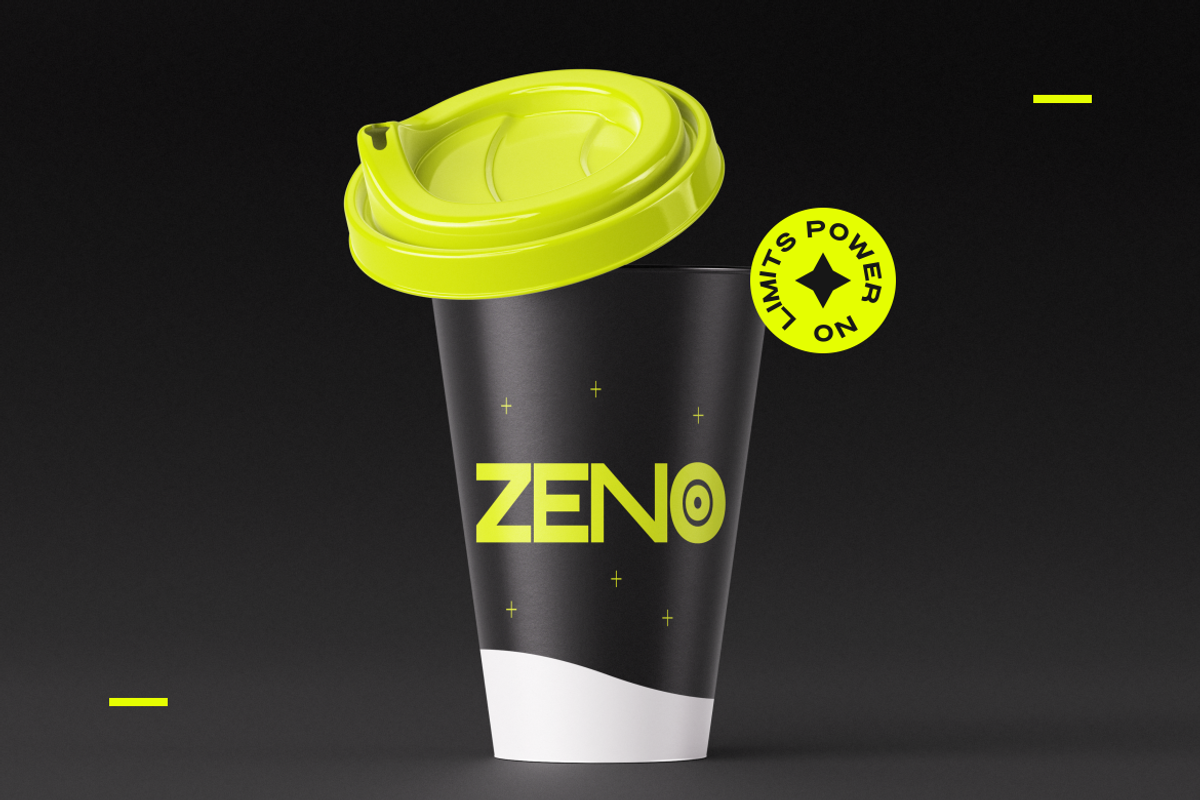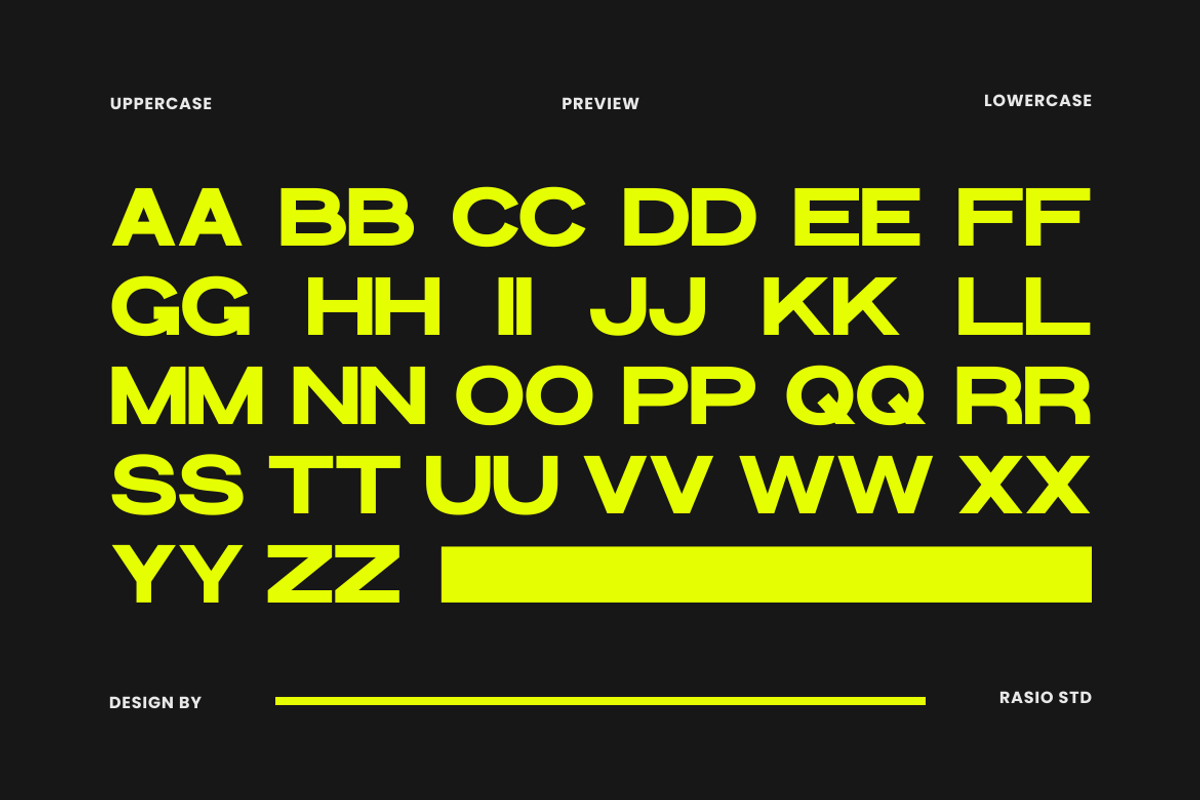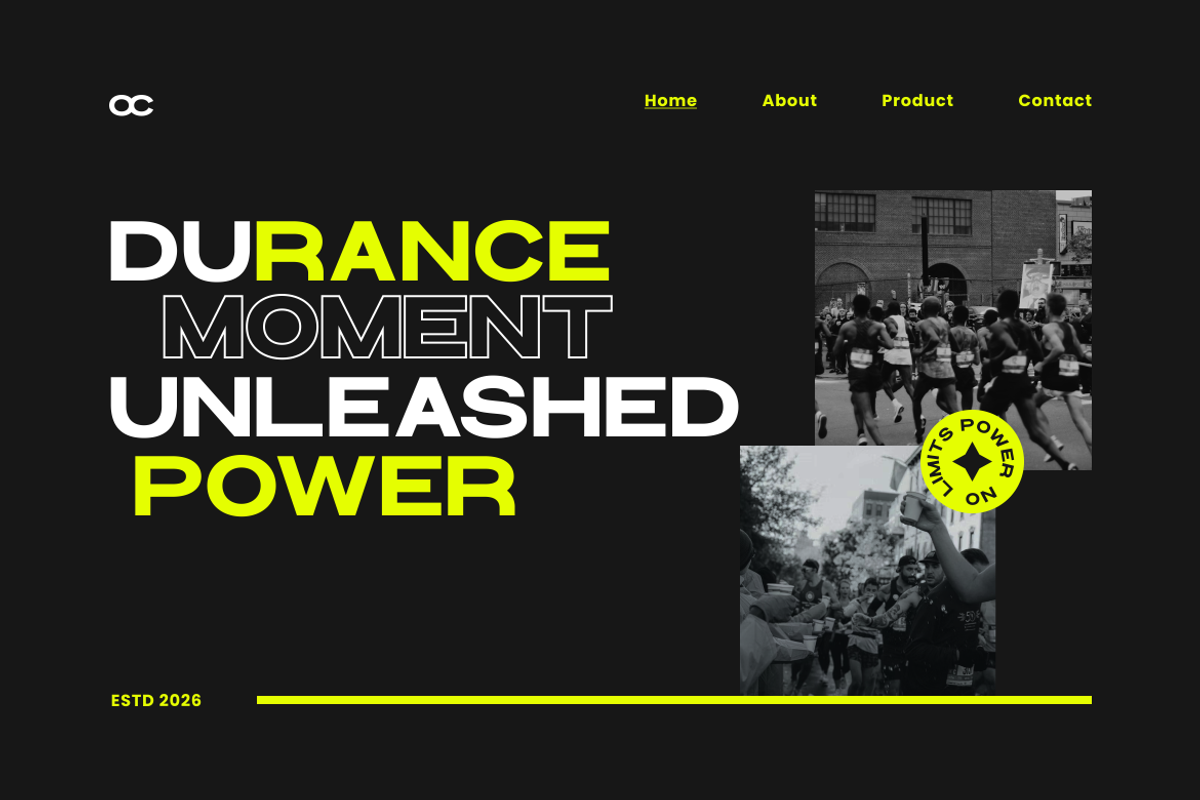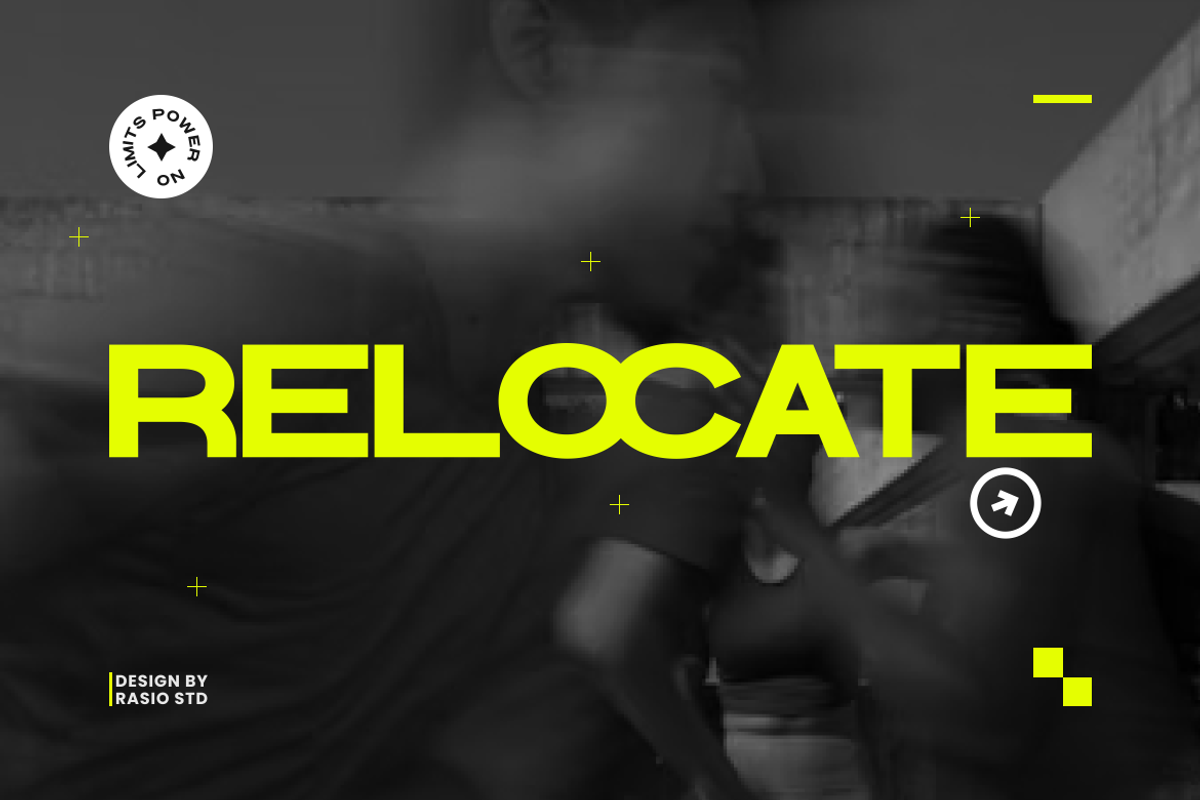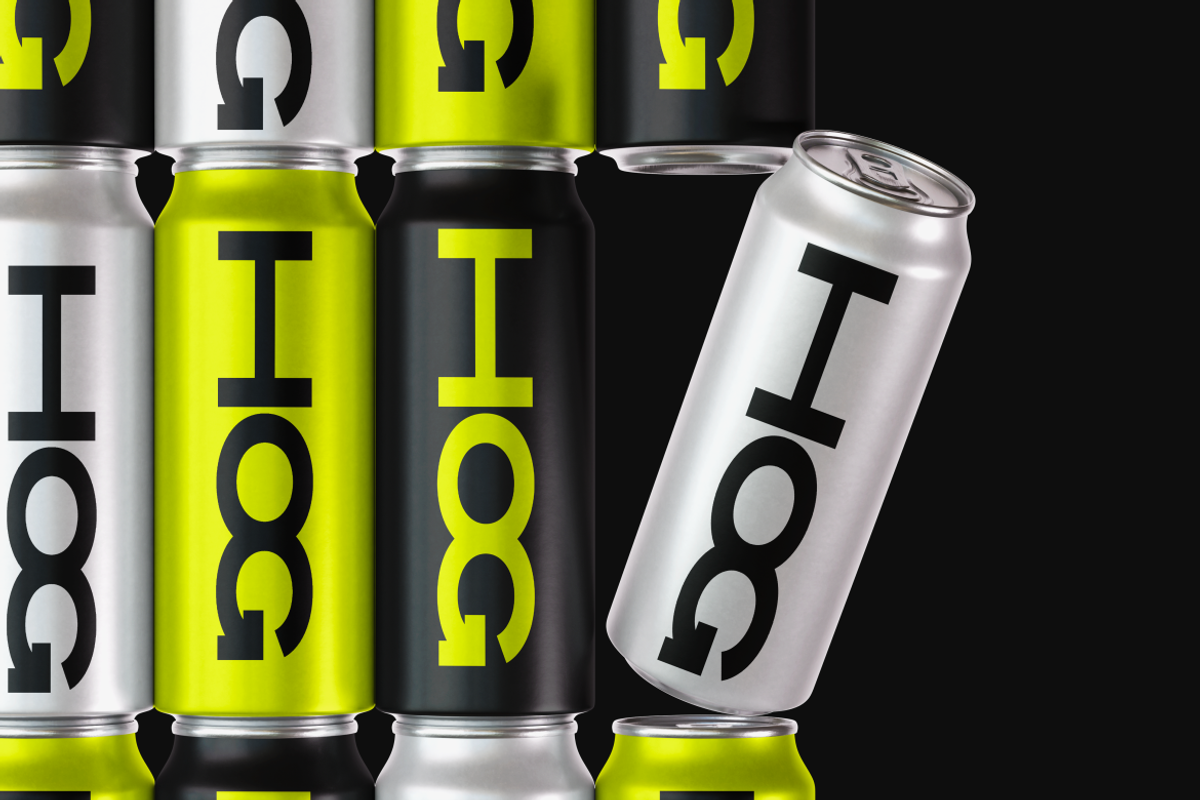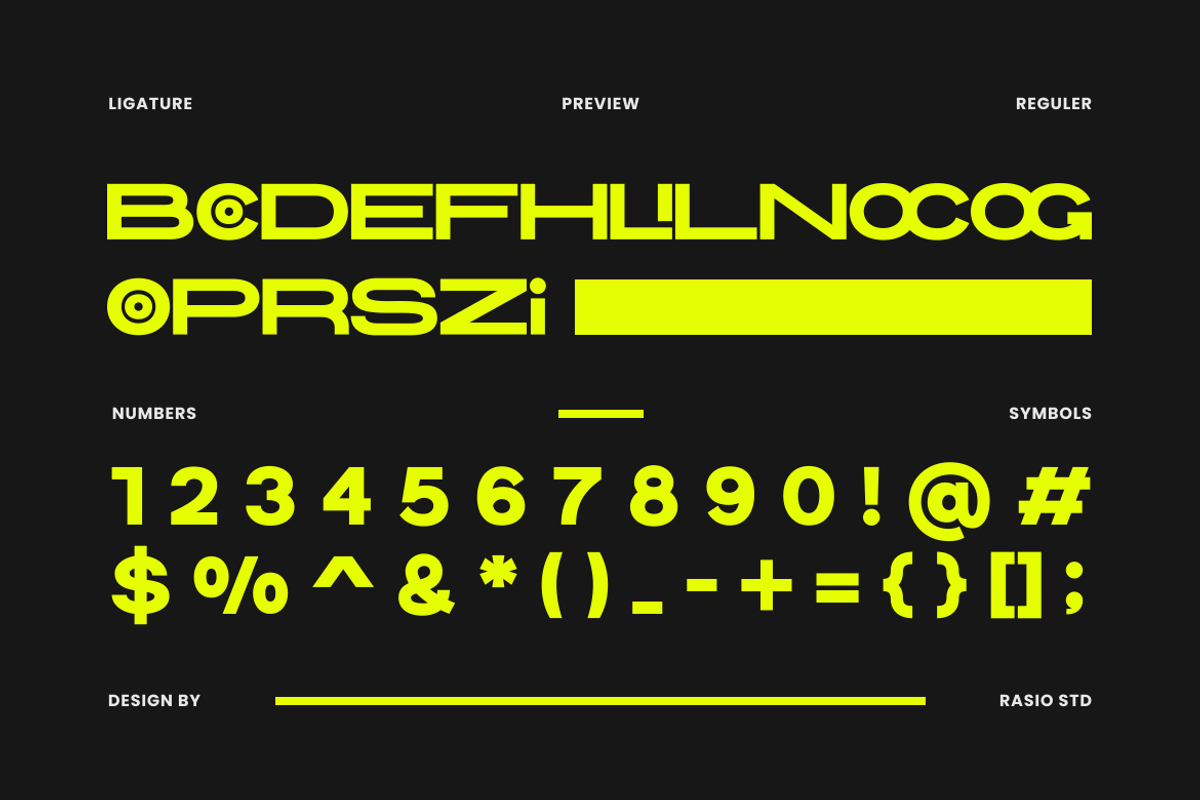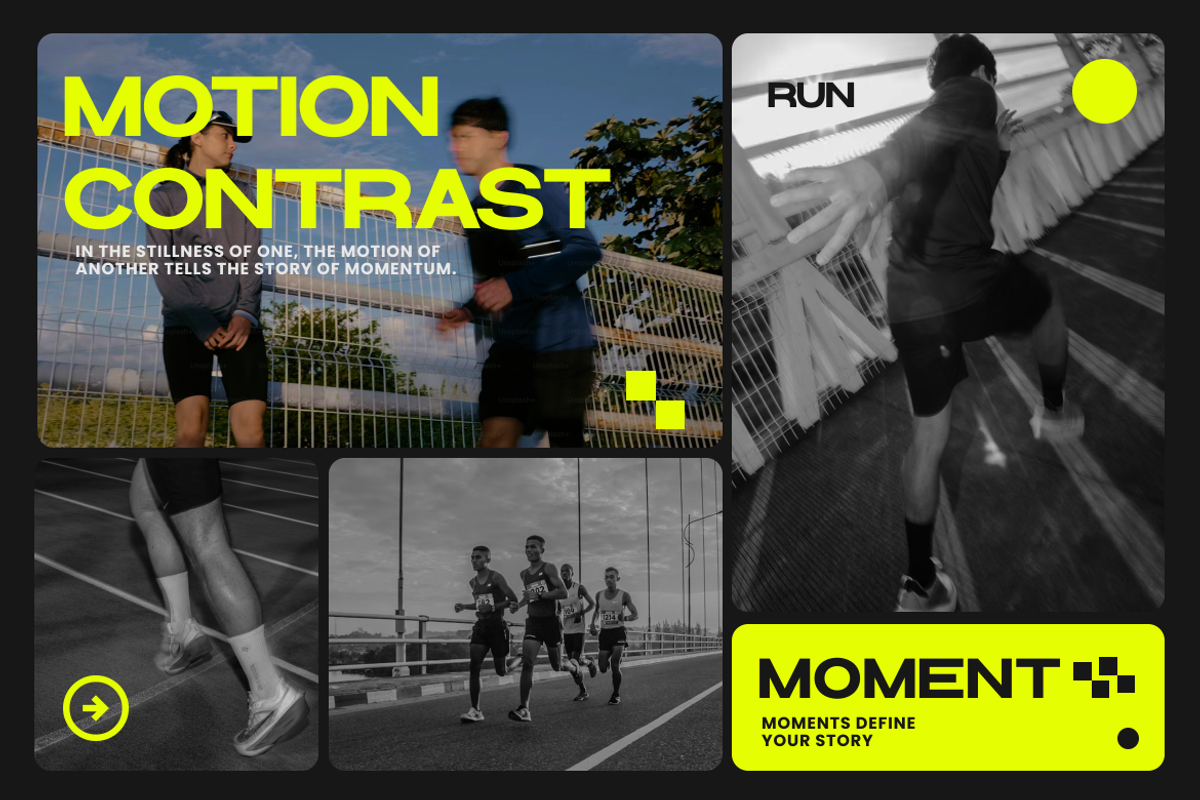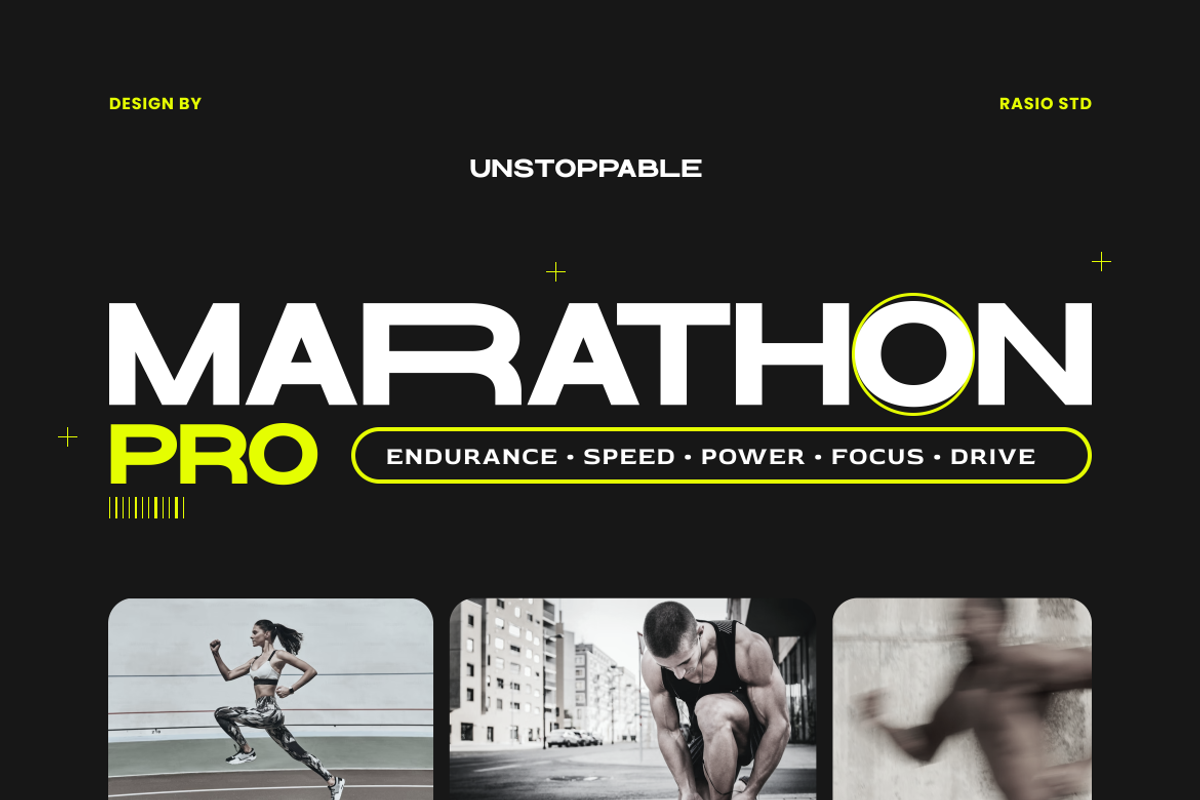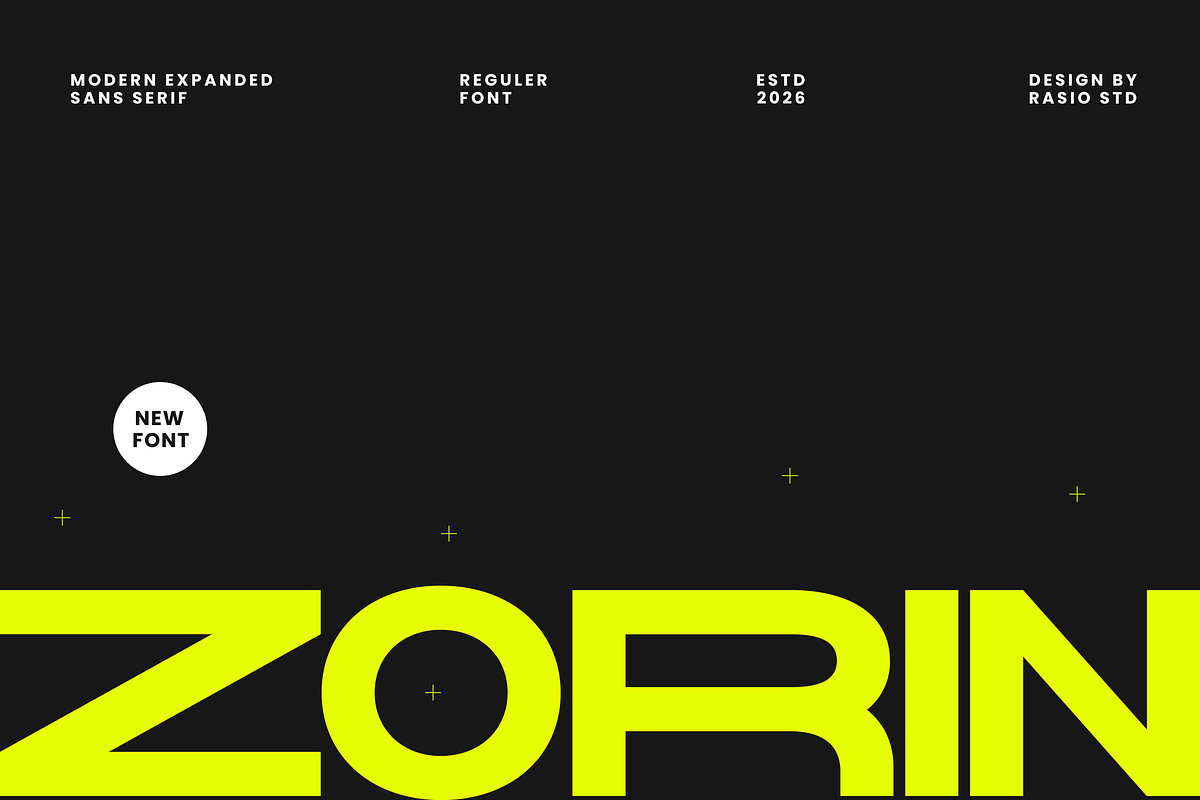
Zorin Modern Expanded Sans Serif
Zorin is a modern expanded sans-serif font designed with bold geometry and wide proportions to create a strong visual presence. Built for impactful typography, this typeface combines futuristic aesthetics with clean structural forms, making it perfect for contemporary design projects that require attention and clarity. The font features powerful uppercase characters, balanced spacing, and distinctive ligatures that enhance its modern identity.
Zorin is ideal for modern branding and projects that require strong visual impact. Its expanded structure and bold geometric forms make it perfect for tech brands, gaming visuals, digital interfaces, posters, editorial headlines, and contemporary marketing campaigns. The font delivers a confident and futuristic look that helps designs stand out across both digital and print media.
- Modern expanded sans-serif design with bold geometric proportions
- Wide letterforms creating a strong and futuristic visual presence
- Clean squared curves and sharp angles for a modern tech aesthetic
- Balanced stroke weight delivering clarity and strong display impact
- Optimized spacing that enhances readability for headlines and branding layouts
- Bold brand identities that require strong, modern visual impact
- Tech startups, gaming projects, and futuristic product branding
- Eye-catching posters, headlines, and promotional graphics
- Digital interfaces, apps, and modern UI display typography
- Social media visuals and marketing materials that need powerful standout text